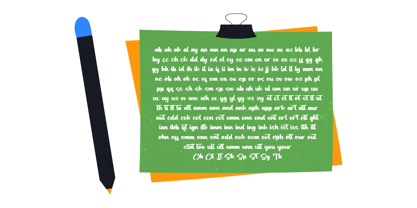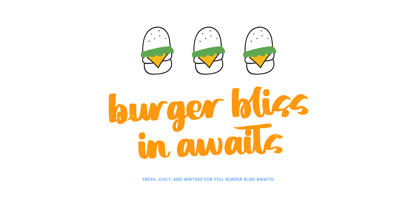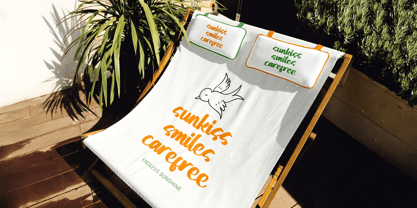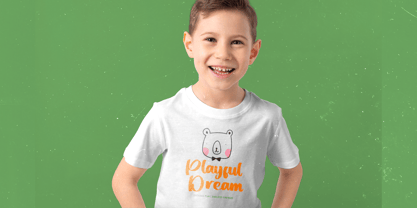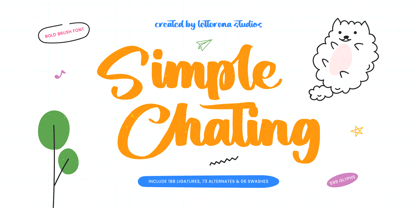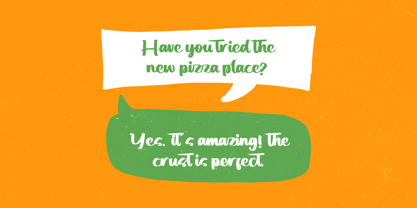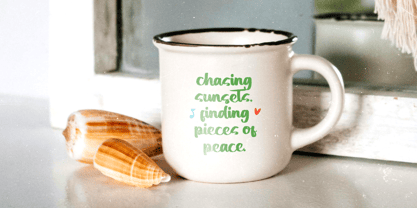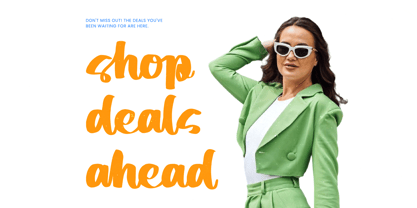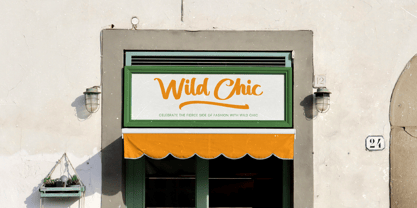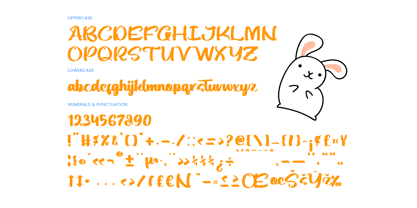
Simple Chating
Simple Chating is a bold brush font crafted to deliver a playful, friendly, and energetic personality in every letter. Designed with expressive brush strokes and smooth flowing curves, this typeface brings a natural handwritten charm while maintaining strong readability for display use. The bold structure gives impact, while the soft edges keep it warm and approachable—perfect for creative branding, kids projects, social media graphics, packaging, posters, merchandise, and fun editorial layouts. Featuring 188 ligatures, 73 alternates, 6 swashes, and 599 glyphs, Simple Chating offers rich stylistic flexibility, allowing you to create dynamic typography compositions with effortless character connections. Whether used for cheerful branding or eye-catching headlines, this font adds personality, movement, and modern brush energy to your designs.